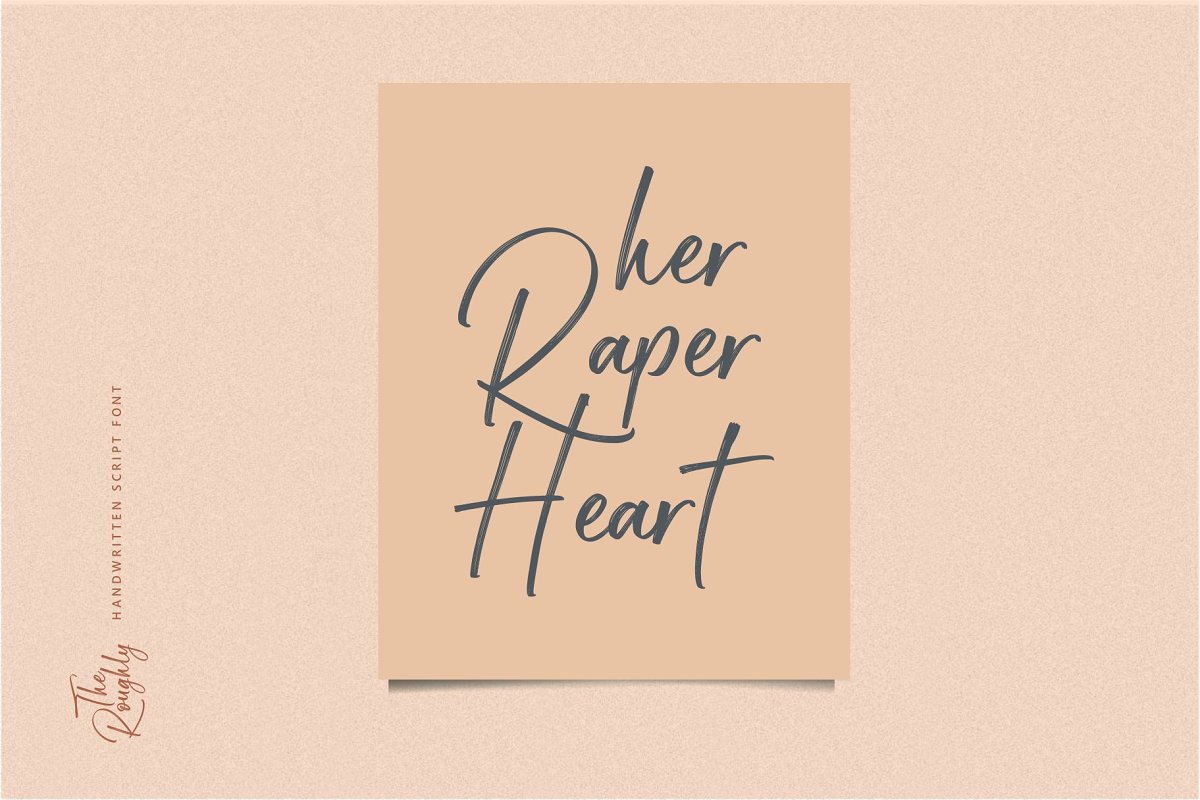
The Roughly | Handwritten Font Free Download
About the The Roughly | Handwritten Font
Welcome to The Roughly, This font takes me back to why I personally fell in love with handlettering – messy and bold handwritten quotes that transform words of inspiration into beautiful visual pieces, In addition to quotes and prints, The Roughly would be ideal for logos and headings, What you get:-The Roughly Script (TTF, OTF & WOFF)In order to use the swashes, you need a program that supports OpenType features such as Adobe Illustrator CS, Adobe Photoshop CC, Adobe Indesign and Corel Draw